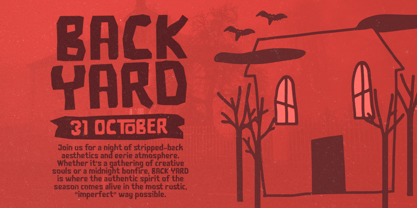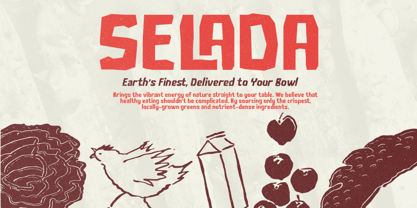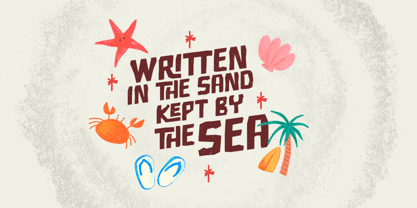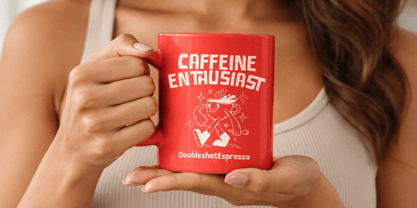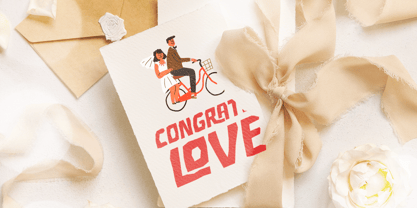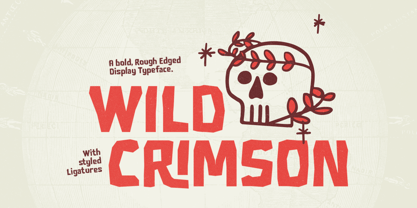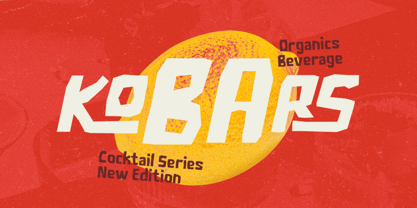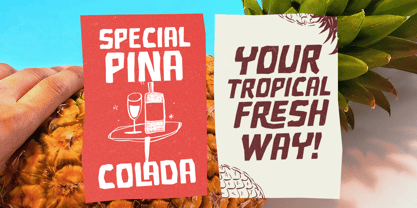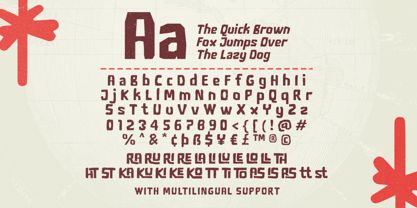
Wild Crimson
The Wild Crimson Font Family was designed by Dzikrul Aulia and published by Bale Type. Wild Crimson contains 2 styles and family package options. More about this family
Wild Crimson is a bold rough edge display font. With ligatures that included, you can make your design more stand out and stylish. You can use this font for any purposes such as poster, branding, logotype, quotes, or any project that needs rugged and bold font. This font suitable for summer holiday and even halloween theme project. This font also have italic version and support multi language.